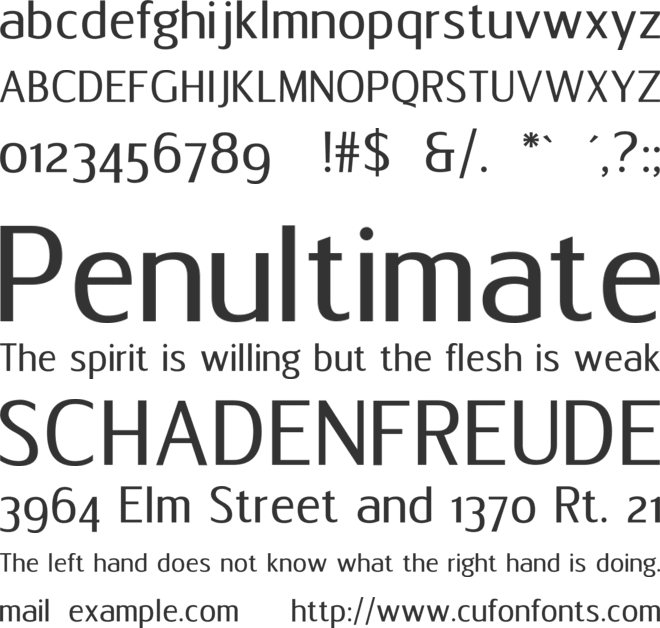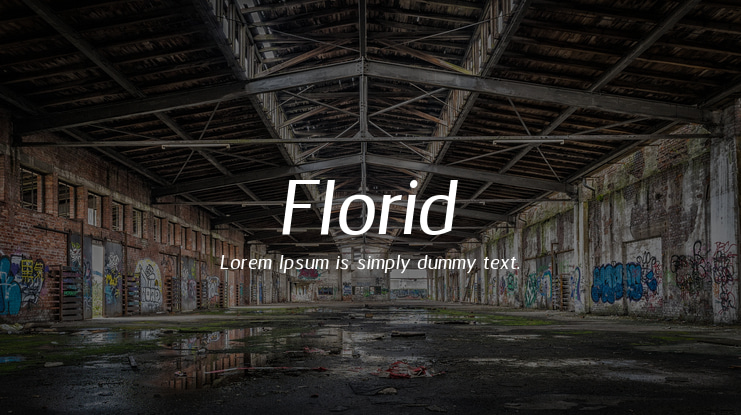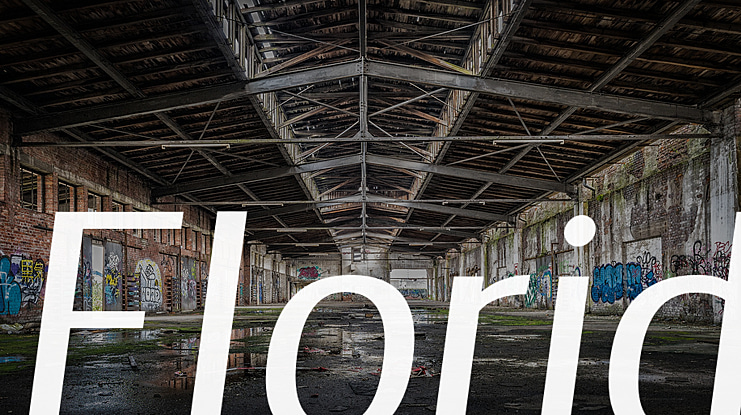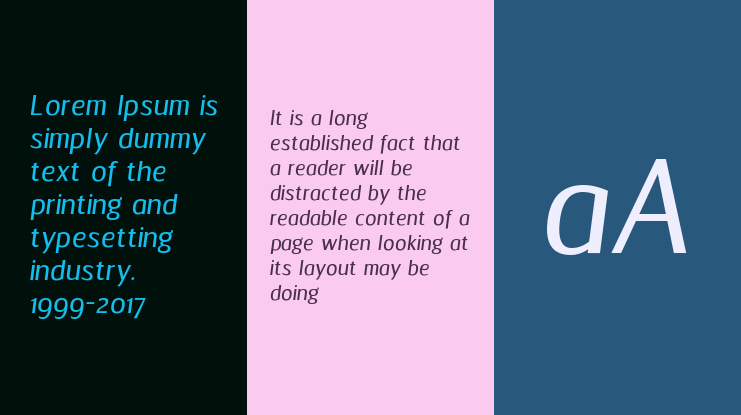
Florid Font Family
Dan P. Lyons (D-Lyons Design)
Here is a "somewhat" original font by me. Somewhat? Well, it's like a mix of Tertiary (Universal) and Ingrid (Fontsmith).
This font came from my head when I was drawing in the air Meta font characters.
This font took me a while to do it, I mean it took me like 50 minutes to make it. Also had to do the italics as well.
Not sure about the bold version though...